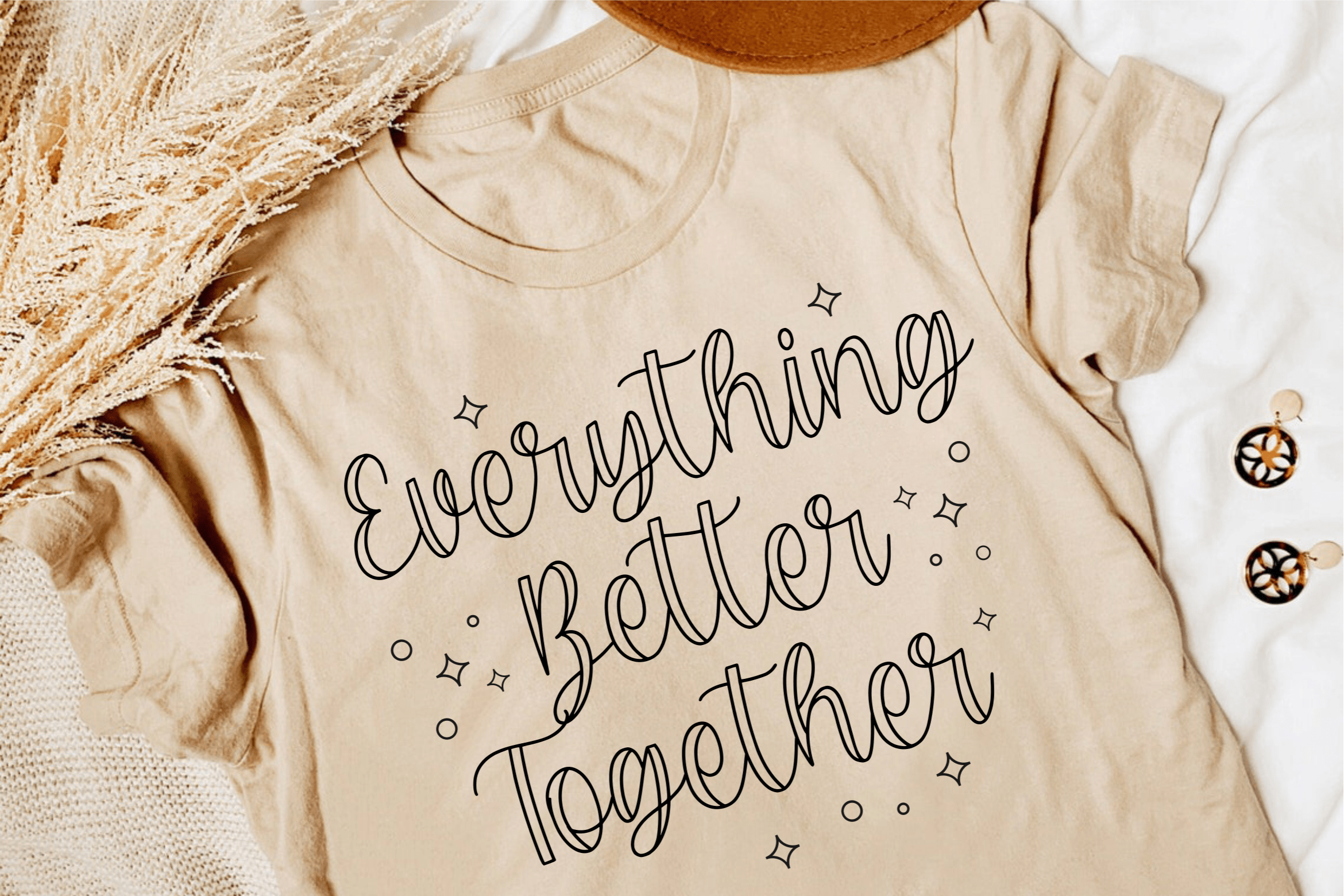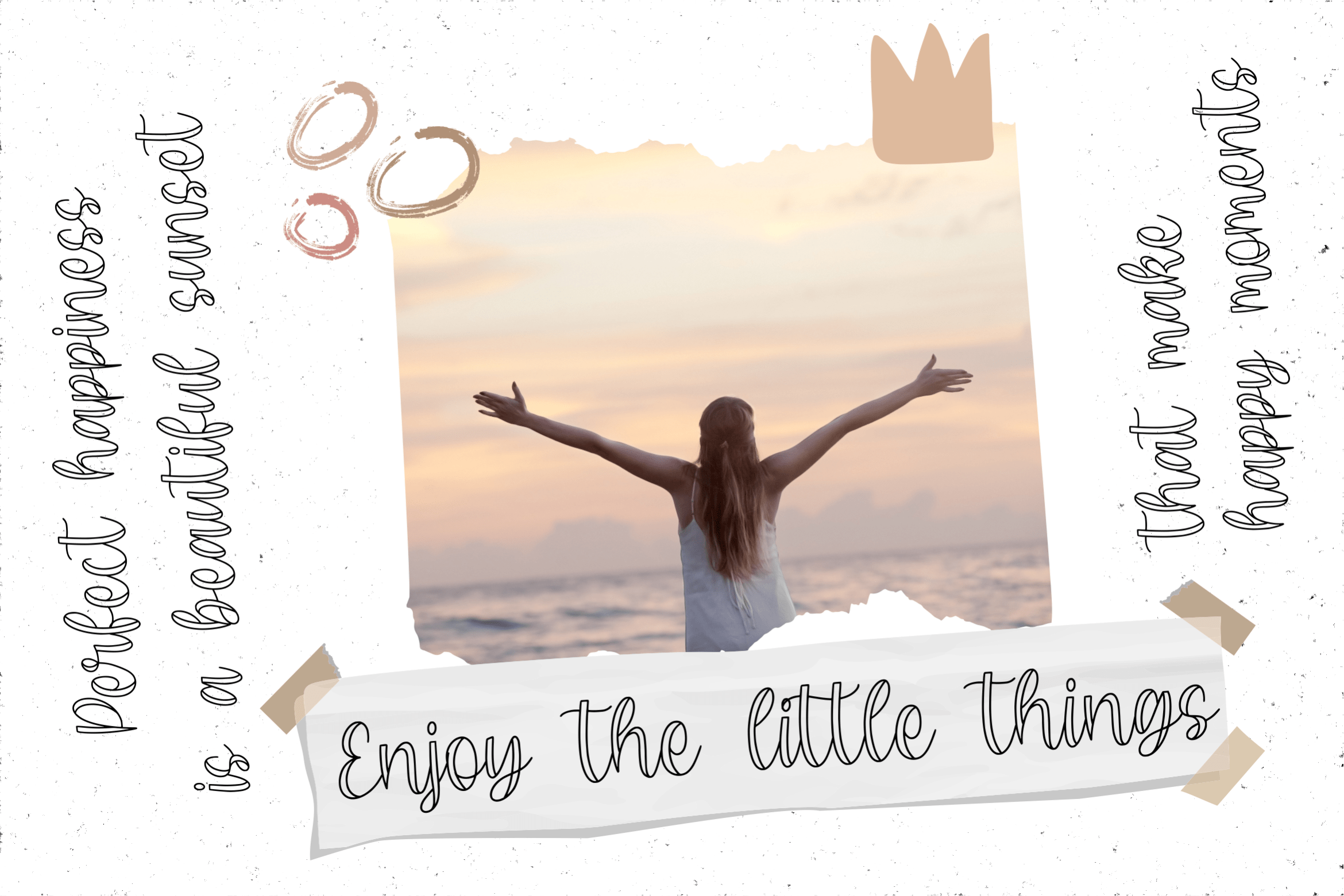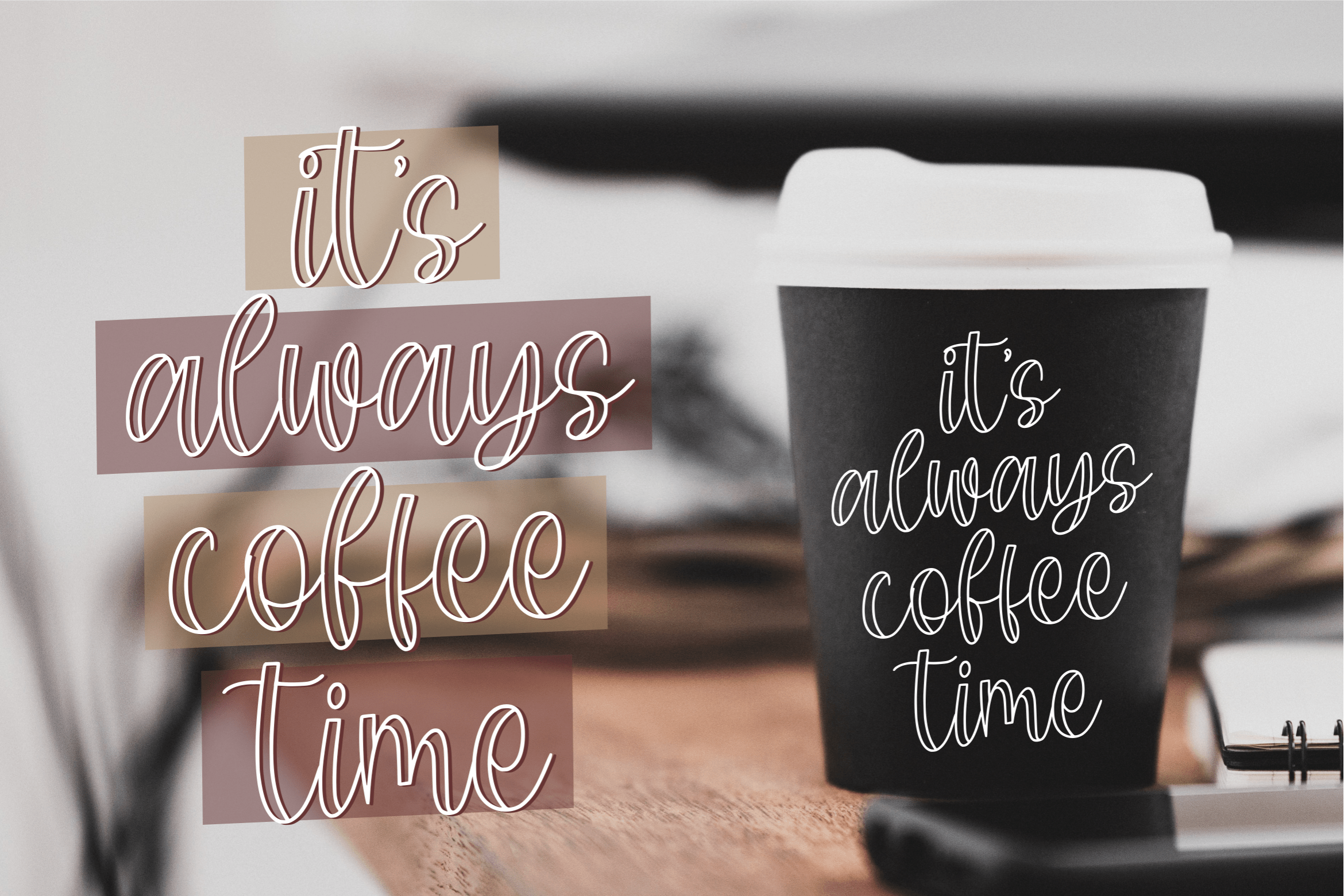
Honeyline Script Font
This is a simple and stylish script font. Honeyline is perfect for product packaging, branding project, magazine, social media, wedding, or just used to express words above the background.